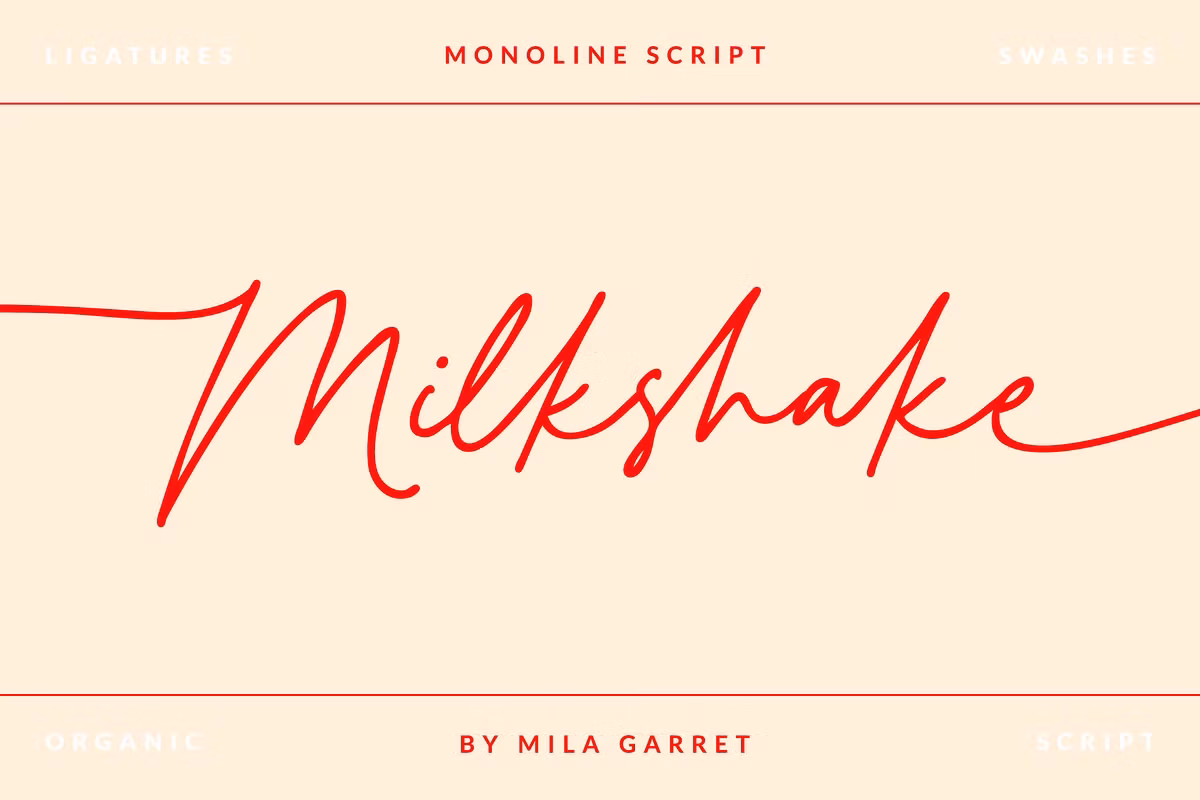
Please note, you must purchase this font for commercial use. However, you can easily download Milkshake Modern Handwritten Script Font Free Download for personal use and testing purposes. Milkshake Modern Handwritten Script Font is a stylish and elegant script font with a modern handwritten feel. Perfect for invitations, branding, logos, social media graphics, and more, this font adds a personal and sophisticated touch to any design. Its smooth curves and fluid strokes make it ideal for projects that require a warm and friendly aesthetic. Whether you're designing a chic logo, an event invitation, or custom stationery, Milkshake Modern Handwritten Script Font Free Download will bring a graceful touch to your work. Download Milkshake Modern Handwritten Script Font Free Download today and explore its potential before opting for a commercial license.